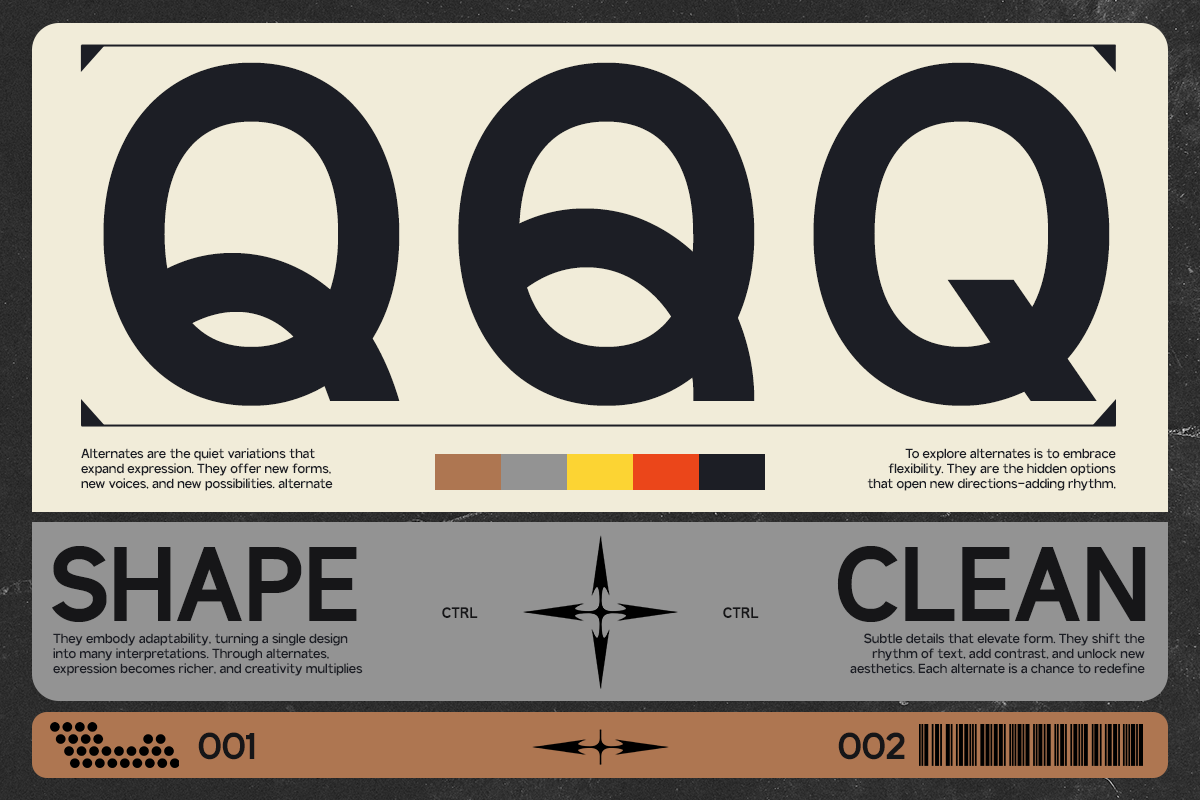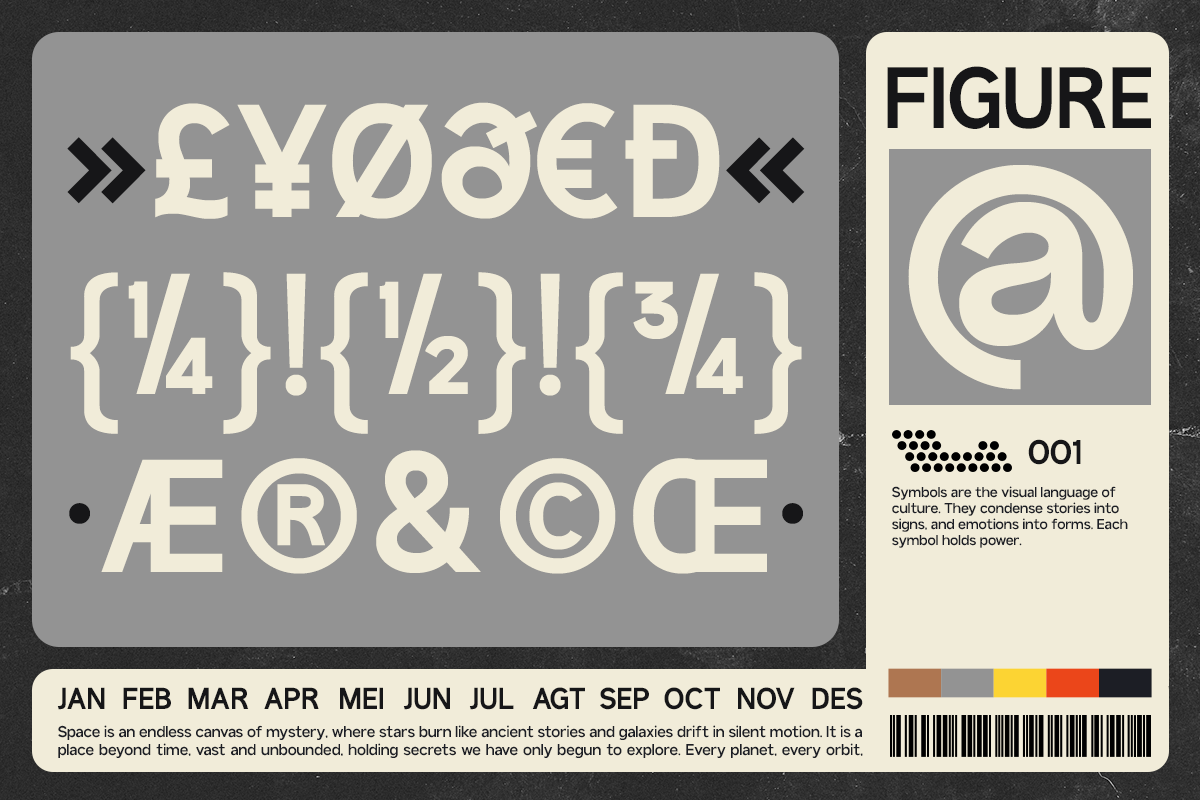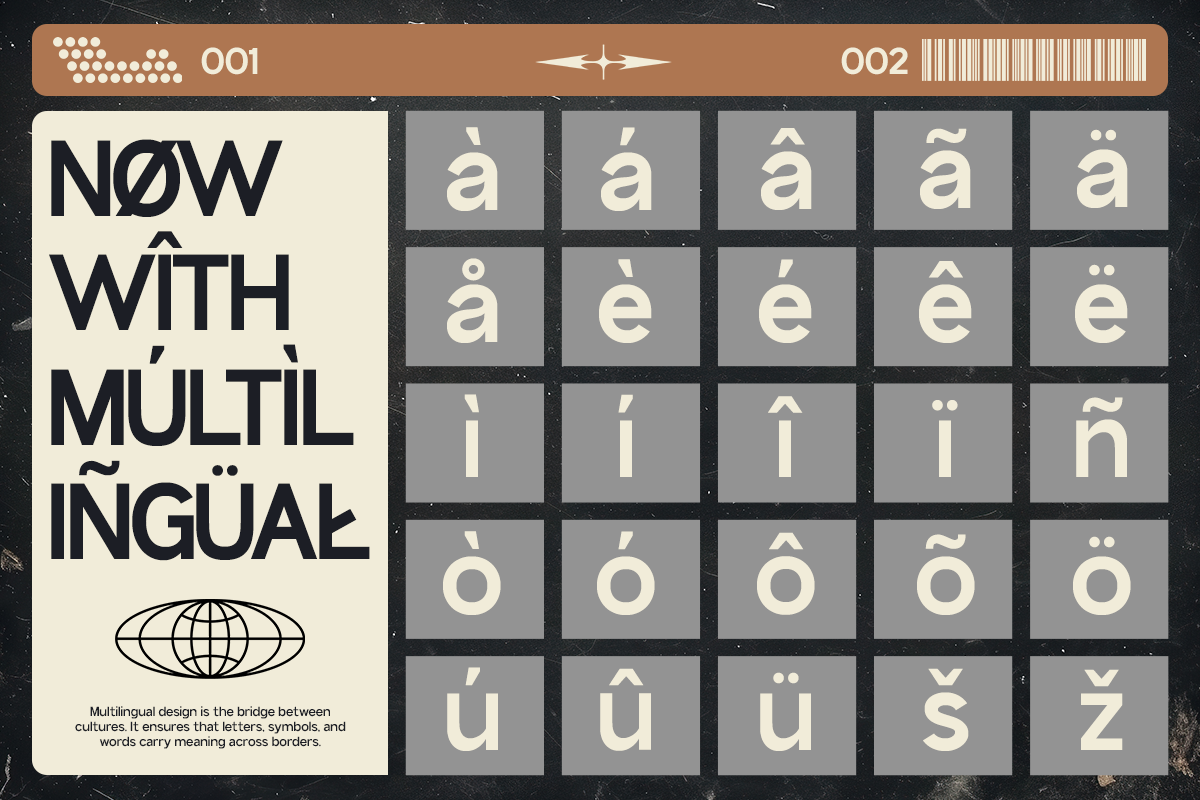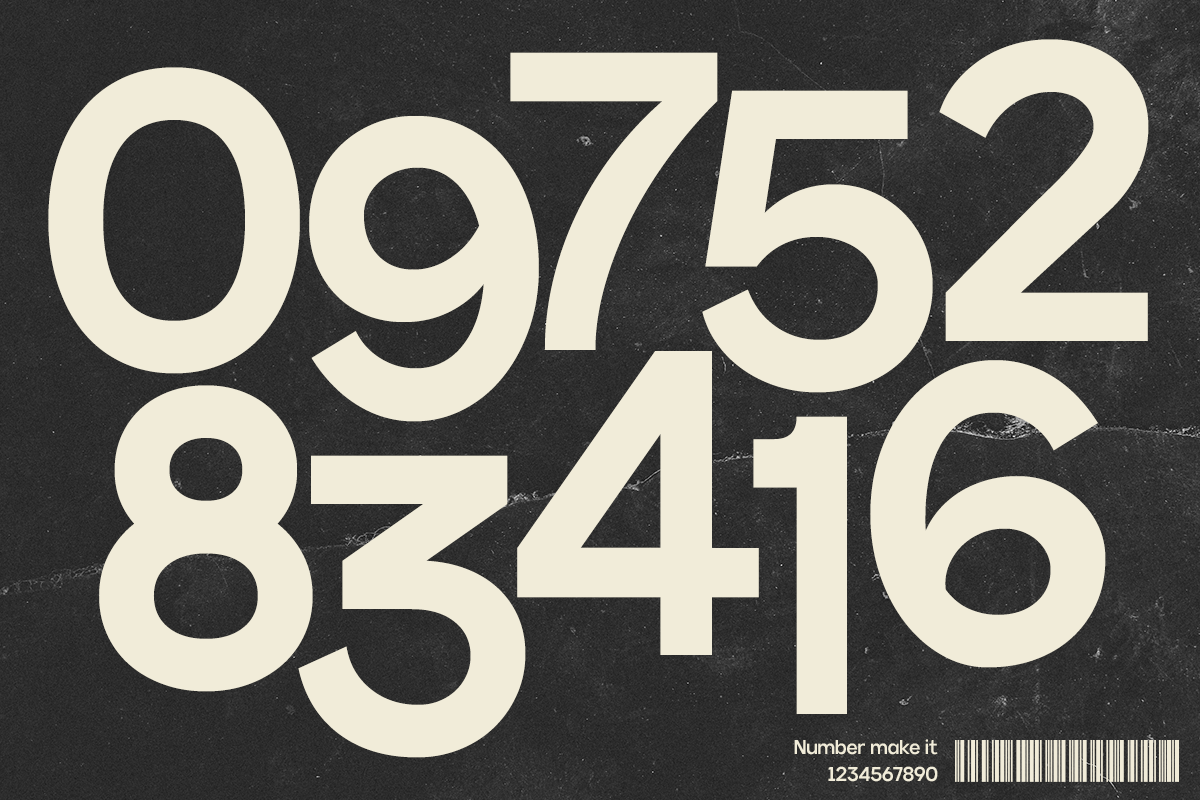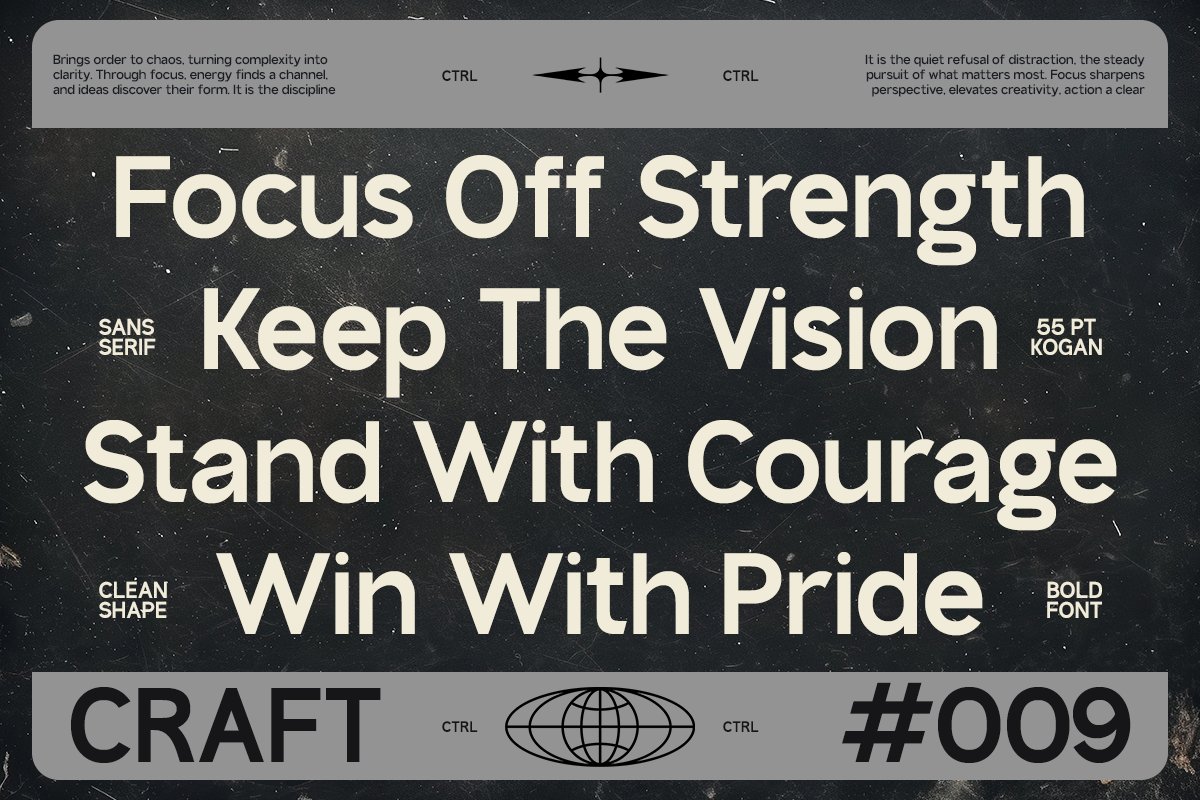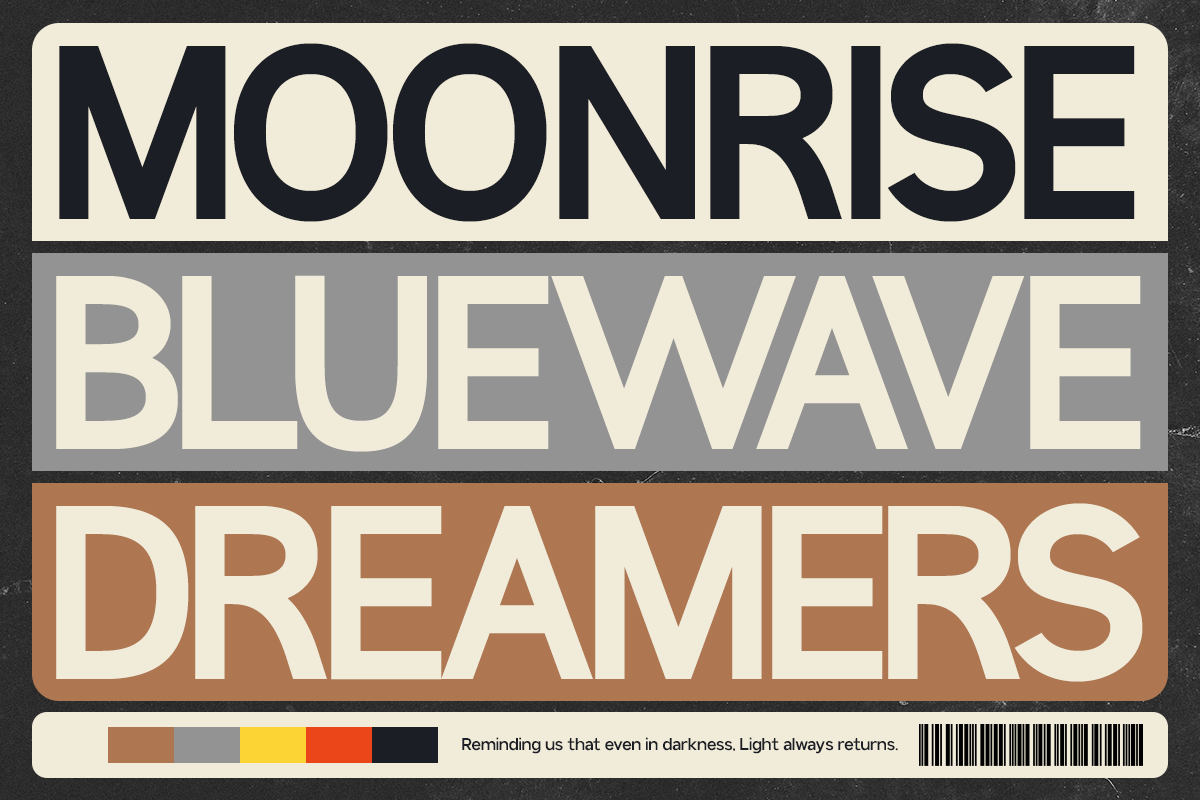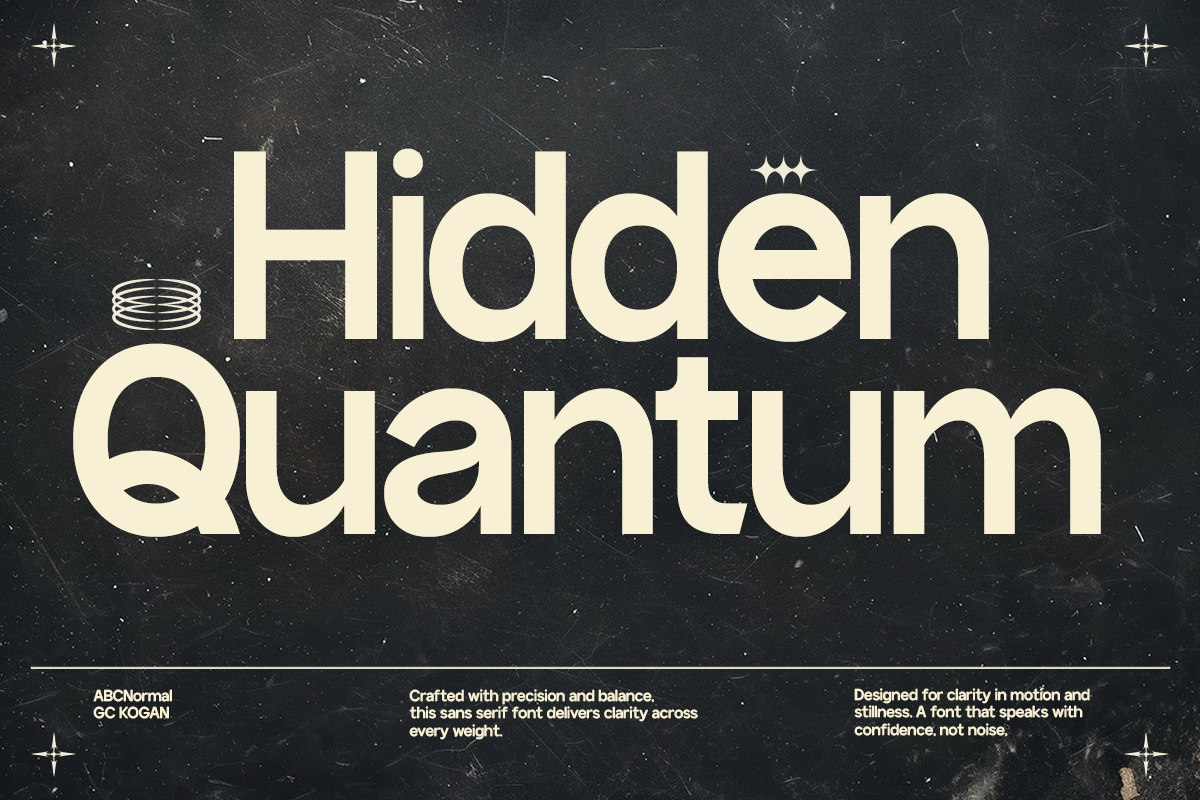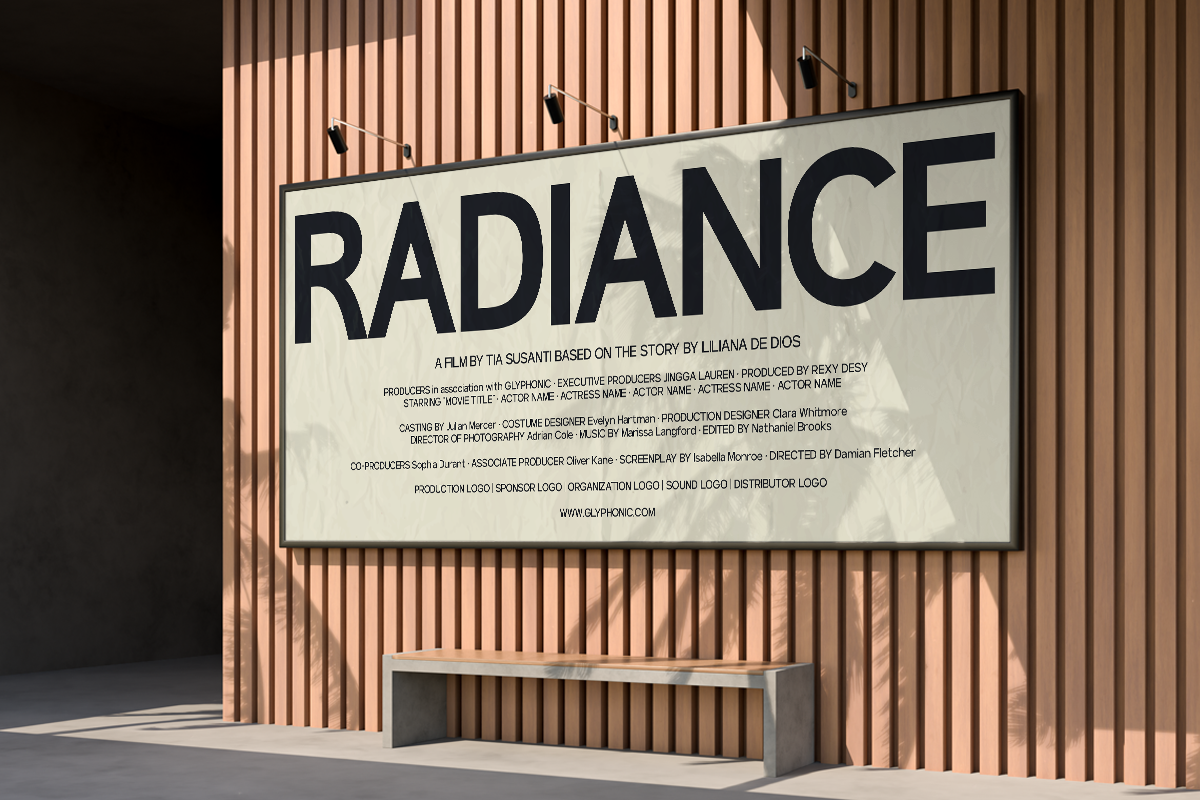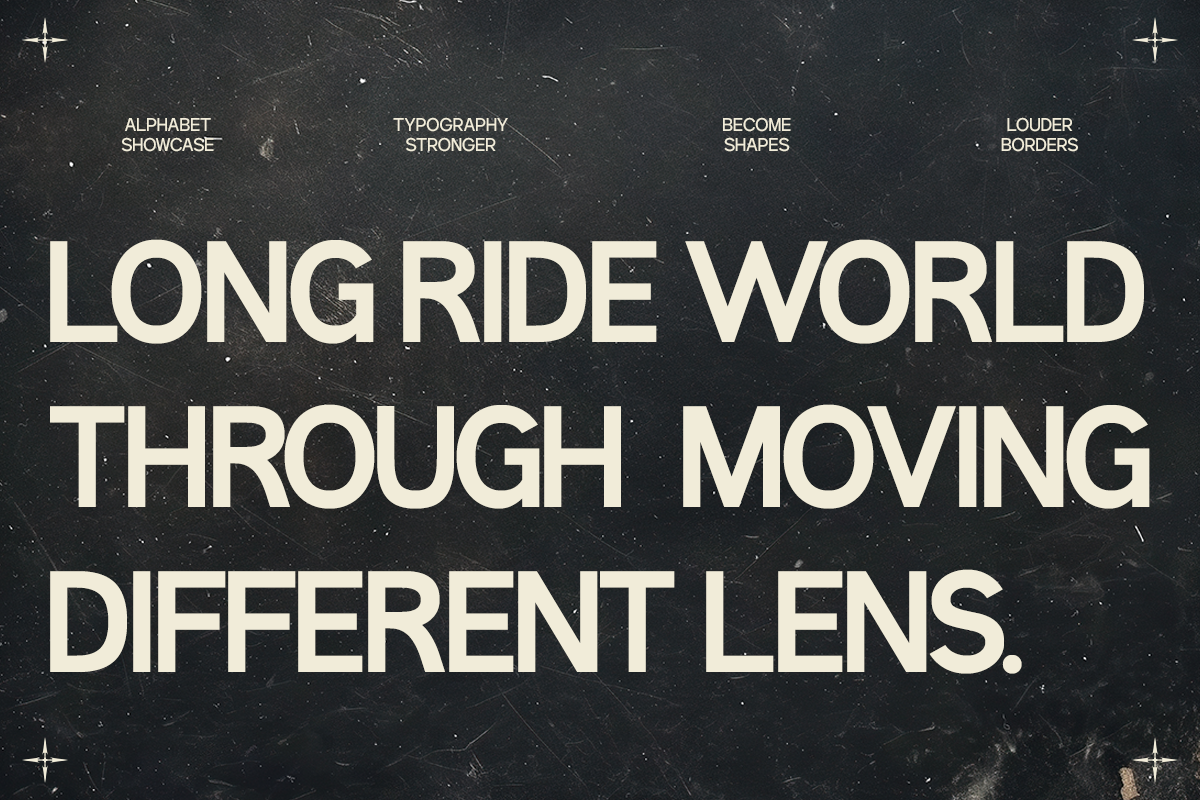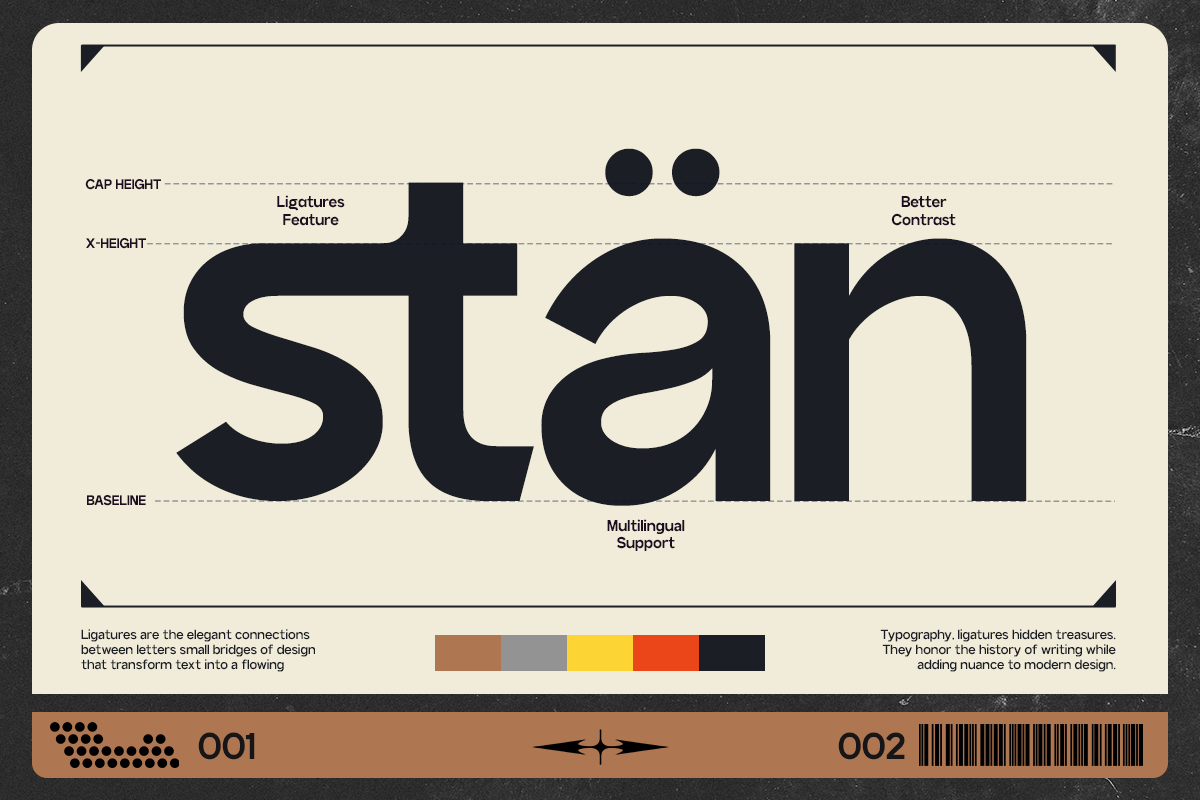
GC Kogan – Dynamic Modern Sans
GC Kogan – Dynamic Modern Sans is a contemporary sans serif typeface that blends clean geometry with modern functionality. Built with precision and bold clarity, it delivers a confident visual presence that adapts effortlessly across digital and print media. Designed to be dynamic yet refined, GC Kogan captures the essence of modular design and modern simplicity — perfect for branding, interfaces, packaging, and editorial layouts.
Balanced proportions and subtle detailing make it versatile and professional, while its bold rhythm gives every word a strong, modern identity. Whether you’re creating tech-driven visuals, minimalist posters, or bold typographic systems, GC Kogan brings structure, power, and timeless appeal to your design.
- Modern Modular Geometry
- Multilingual Support (170+ Languages)
Elevate your design with clarity, precision, and confidence using GC Kogan – Dynamic Modern Sans.